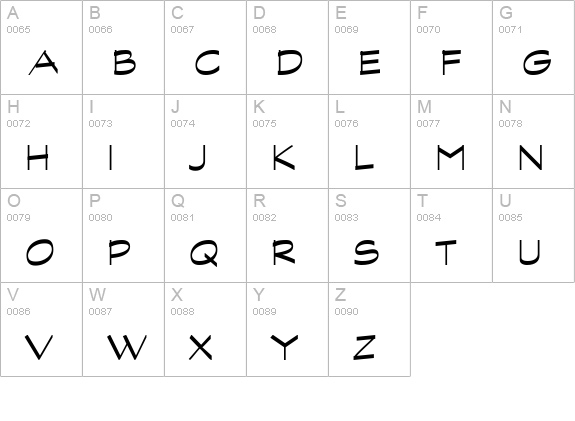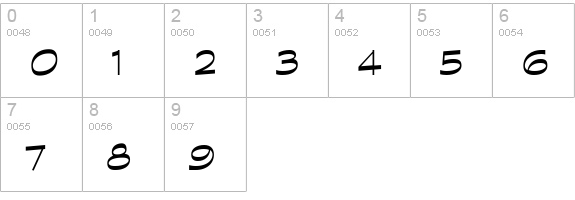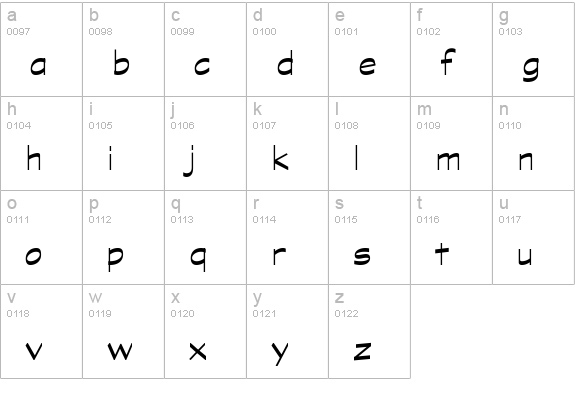
Graphite MM Font Details
Graphite MM is a sleek and modern font that exudes sophistication and elegance. With its clean lines and sharp edges, this typeface is perfect for creating eye-catching designs that make a statement. Whether used for headers, logos, or body text, Graphite MM adds a touch of refinement to any project. The best part? Graphite MM is completely free to download at FontsMarket.com. This means you can easily access this high-quality font without breaking the bank. So why wait? Elevate your designs with Graphite MM today and make a lasting impression with its timeless appeal.